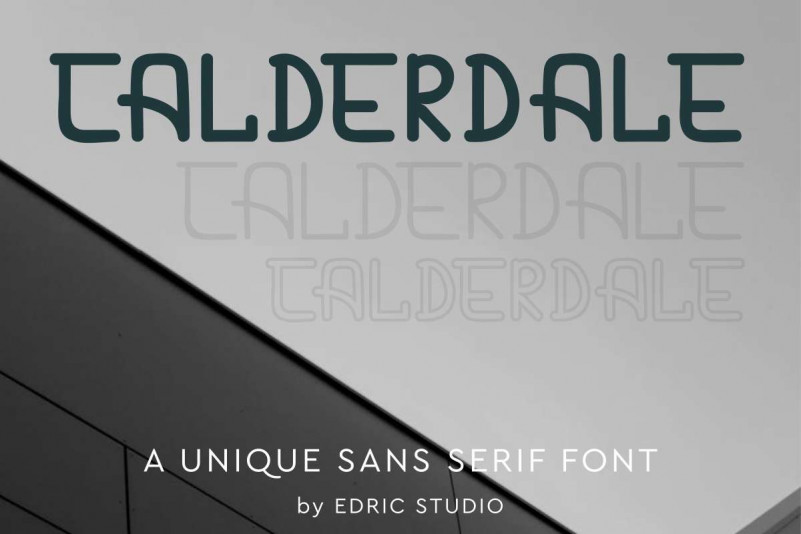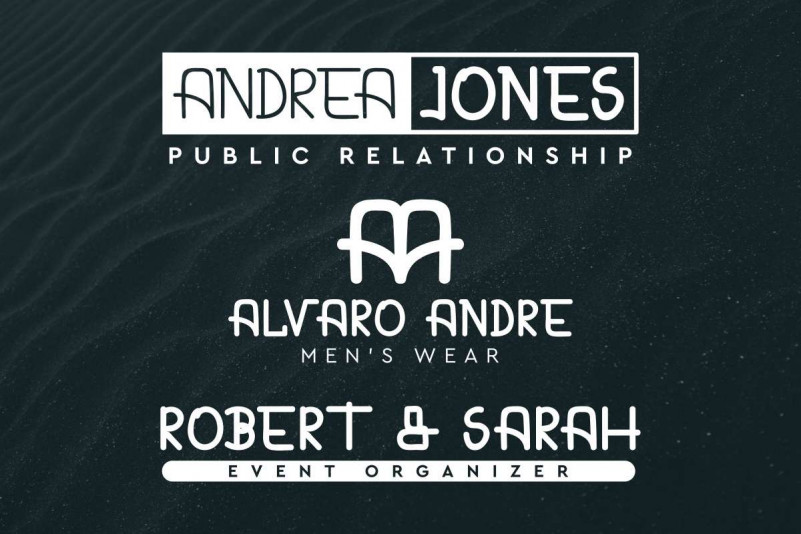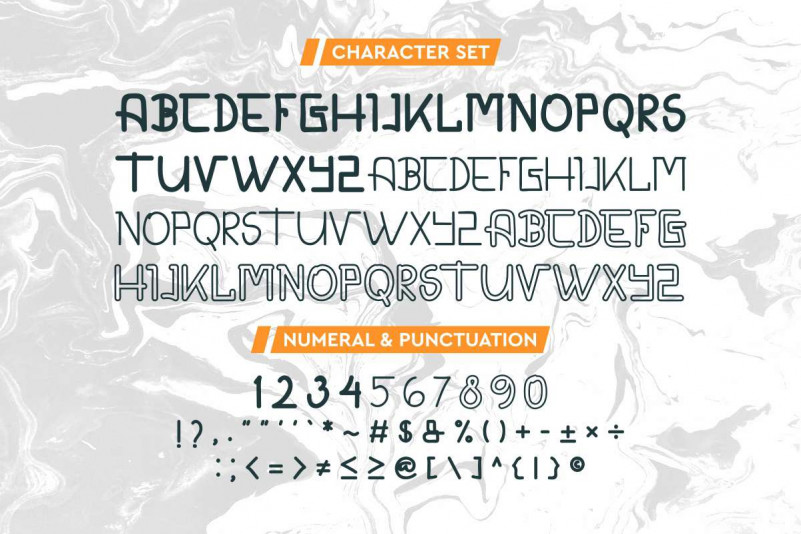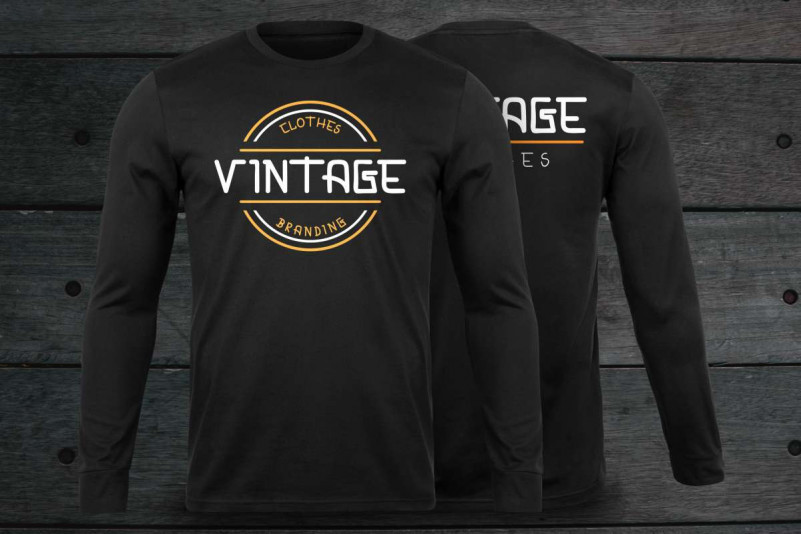
Calderdale Sans Serif Font
EdricStudio in 2019 present to you : CALDERDALE Font CALDERDALE is a sans serif display family font. It has a modern and stylish glyphs. Will be Great for branding, headline, logo (with extended license), stationery, business card, signage, flyer, brochure etc. CALDERDALE Font has three styles : reguler, light and outline. It also supports many international languages.